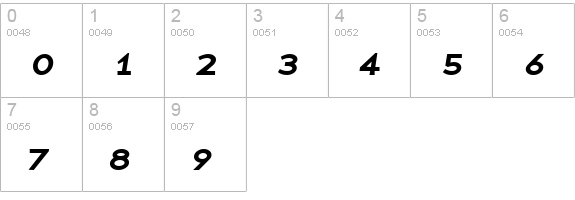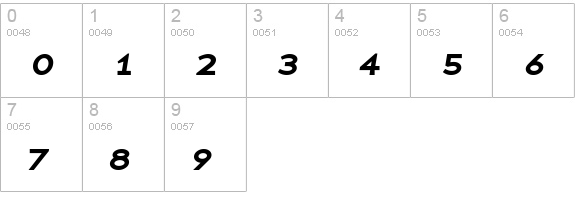
BaseNineSmallCaps Italic Font Details
BaseNineSmallCaps Italic is a distinctive, italic variant in the BaseNineSmallCaps typeface family \xE2\x80\x94 well suited to design and typography projects.
BaseNineSmallCaps Italic font is a beautifully designed typeface that exudes elegance and sophistication. With its sleek lines and stylish curves, this font is perfect for adding a touch of class to any project. The italic style adds a touch of flair and personality, making it stand out from the crowd. What's even better is that BaseNineSmallCaps Italic font is completely free to download at FontsMarket.com. Whether you're working on a professional design project or simply want to enhance your personal creations, this font is the perfect choice. Don't miss out on the opportunity to add this stunning font to your collection today!